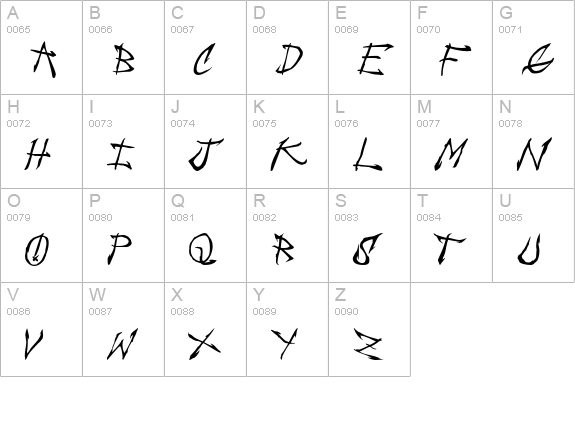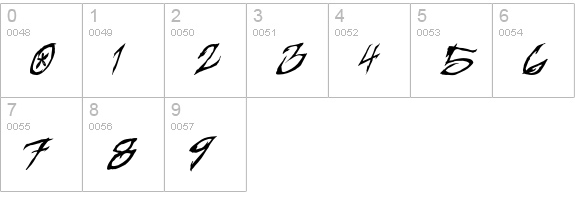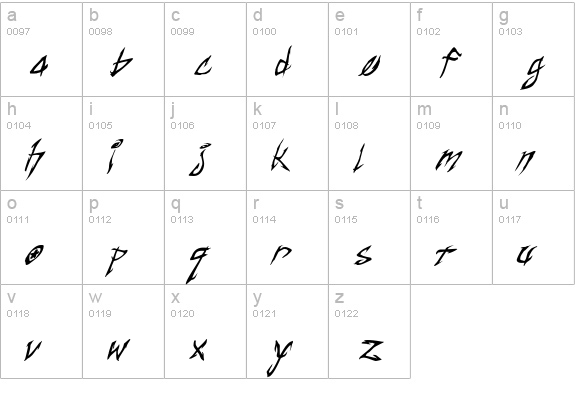
KEYBOLTZ Font Details
Introducing KEYBOLTZ font, a stunning display typeface that is sure to make a powerful statement in your design projects. With its bold and dynamic letterforms, this font exudes a sense of strength and modernity that will captivate your audience. KEYBOLTZ font is not only visually striking but also highly versatile, making it suitable for a wide range of design applications. Whether you're designing a logo, creating eye-catching headlines, or crafting attention-grabbing posters, this font will elevate your work to new heights. But what sets KEYBOLTZ font apart is its availability. It is freely available to download at FontsMarket.com, allowing you to unleash your creativity without any barriers. This means that you can access this exceptional font instantly, saving you time and money. Designed with meticulous attention to detail, KEYBOLTZ font ensures legibility even in small sizes, making it perfect for both print and digital projects. Its clean and sharp lines give it a contemporary edge, while the subtle curves add a touch of elegance. Furthermore, KEYBOLTZ font supports a wide range of languages, making it accessible and adaptable to various global markets. Its extensive character set includes uppercase and lowercase letters, numerals, punctuation marks, and special symbols, providing you with endless possibilities to express your creative vision. In conclusion, KEYBOLTZ font is a must-have for any designer seeking to make a bold statement. With its visually captivating aesthetics, versatility, and the fact that it is freely available to download at FontsMarket.com, this font is a powerful tool that will elevate your designs to new levels of excellence. Embrace the freedom and unleash your creativity with KEYBOLTZ font today!